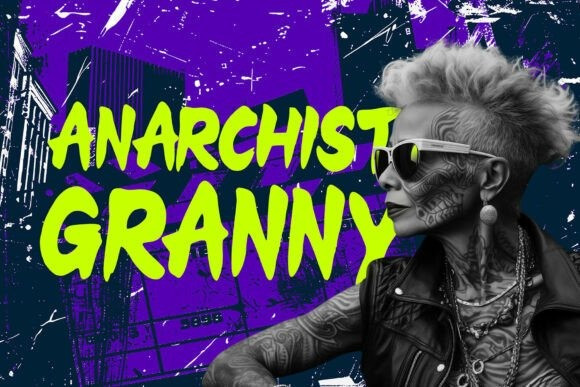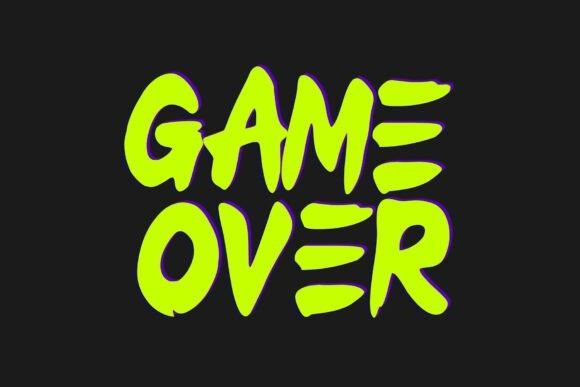
Chicken Punk Font
Chicken Punk Font a daring graffiti display font that fuses the brash audacity of punk with the raw intensity of street culture. This audacious typeface is crafted for risk-taking designers, transforming each word into a powerful declaration of rebellion. Chicken Punk’s hefty strokes, untamed edges, and oozy details exude a wild, handcrafted aura that echoes the energy of city streets or the rough, do-it-yourself aesthetics of punk flyers.
The letters of Chicken Punk present an aesthetic that is sprawling, full-bodied, and tension-filled. Instead of embracing the predictable uniformity of shapes, the design eulogizes imperfection, its irregular outlines, varied rhythm, and ceaseless handmade charm adding layers of complexity. The font captures the chaotic vibrancy of noises, mess, and life teeming in the subterranean scenes that birthed it – from rock concerts, skateboard parks, to streets transformed by vibrant murals and stickers.
Designed as a display font, Chicken Punk is perfect for those larger-than-life titles crying out for impact. Whether its album covers, concert posters, or streetwear branding, the robust form of this typeface ensures that despite the hefty dose of grunge and grit, readability is never compromised. This allows you to experiment with edgier designs without jeopardizing coherence. In keeping with practical design needs, Chicken Punk gifts you a well-rounded toolkit of uppercase letters, numbers, and punctuation.
Multilingual support ensures Chicken Punk caters to creators around the globe, illuminating their work across languages and markets with its punk-inspired verve. With an ethos of capturing and holding attention, Chicken Punk windmills to the forefront, bold and irreverant amidst the sea of restrained fonts. Whether it’s music brand representation, streetwear tags, festival posters, album covers, or rebellious social media graphics, Chicken Punk’s striking aesthetic elevates the everyday into something strikingly graphic.
Defiantly refusing to conform, Chicken Punk is a wildcard, primed to disrupt layouts and yield a stunningly gritty visuality. If your design mandate calls for a typography that embodies chaos, raw energy, and just a soupçon of punk-inspired attitude, Chicken Punk is the one. It fuses the spirit of the streets with punk ethos, transforming mundane text into a graphic spectacle.